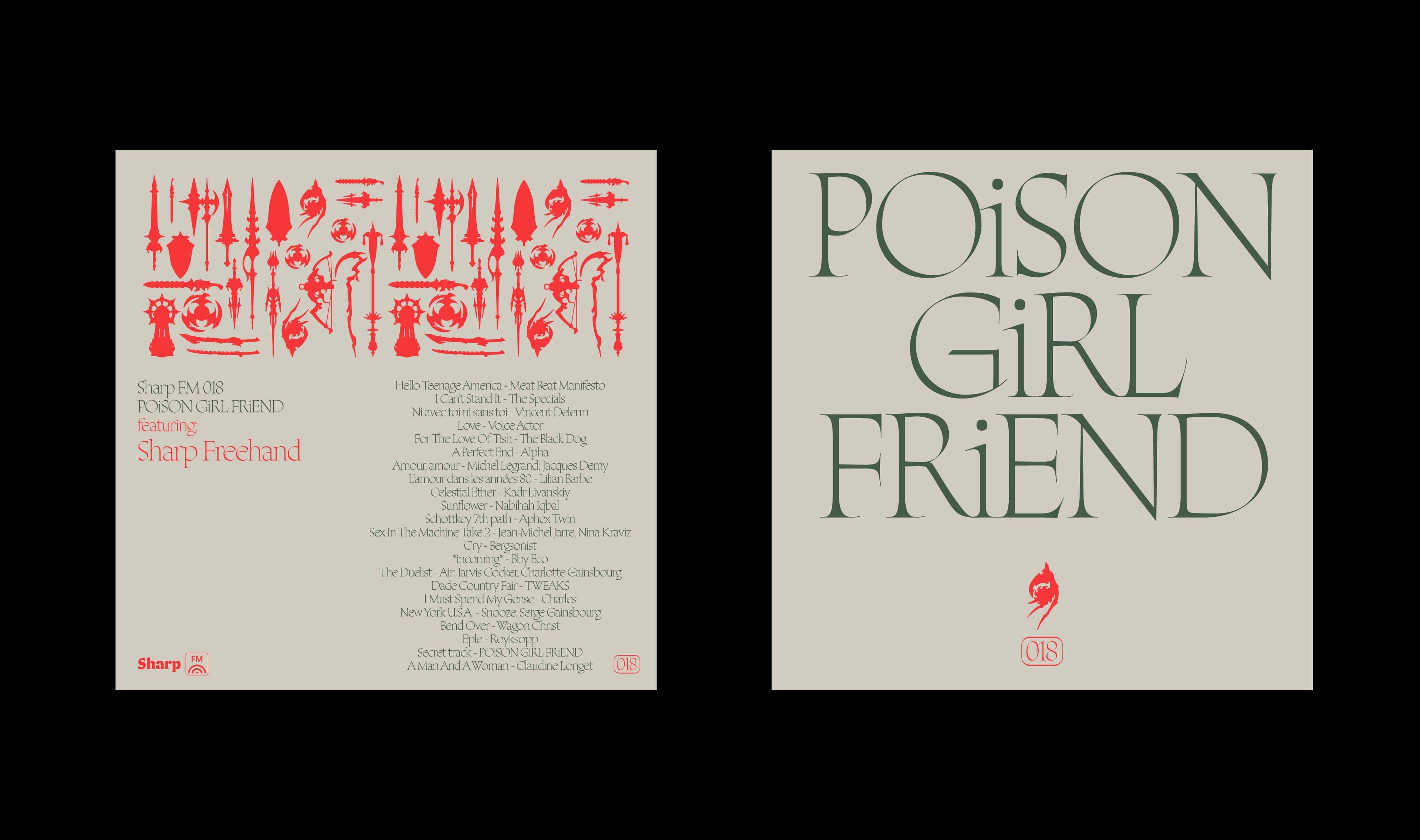
Sharp FM 018 debuts alongside our new Sharp FM webplayer!
Cult favorite POiSON GiRL FRiEND gifts us with an exclusive mix where, in her own words, "Gen X meets Gen Z. Love, love, love… L’amour, l’amour… Dedicated to the encounters and love between music-loving people from different spheres."
Like the shapes of Sharp Freehand, which grace the cover, POiSON GiRL FRiEND's music is uniquely familiar—an amalgamation of specific influences that is rooted in an era and place, but is also timeless in its quality. This mix has a similar appeal, combining songs from the 90s with the present, and even includes an unreleased PGF track.